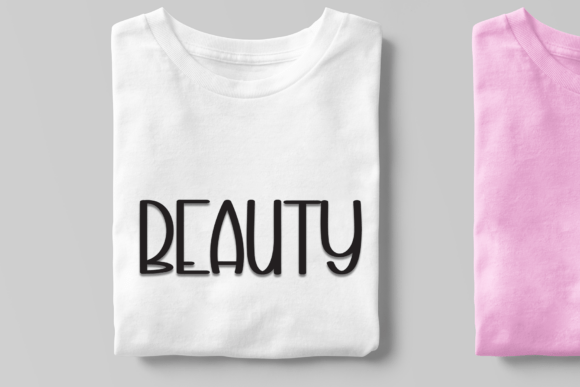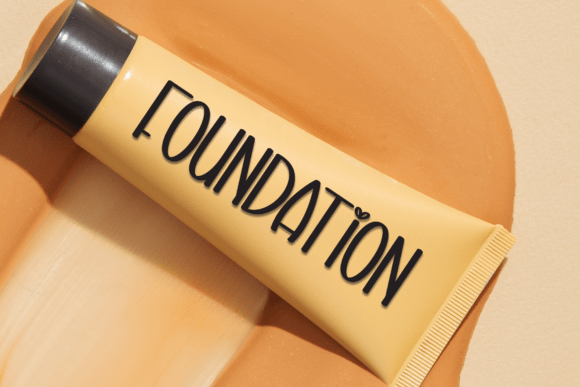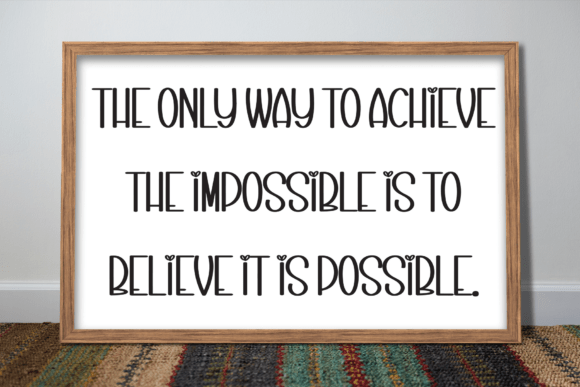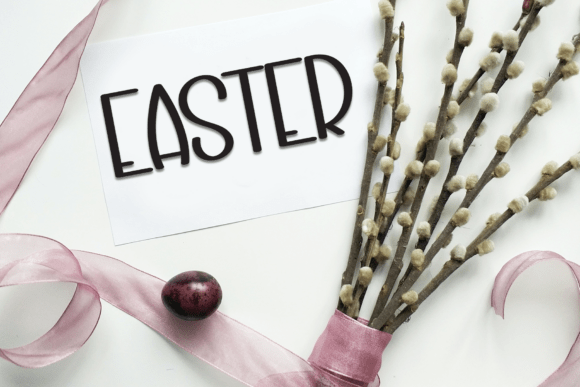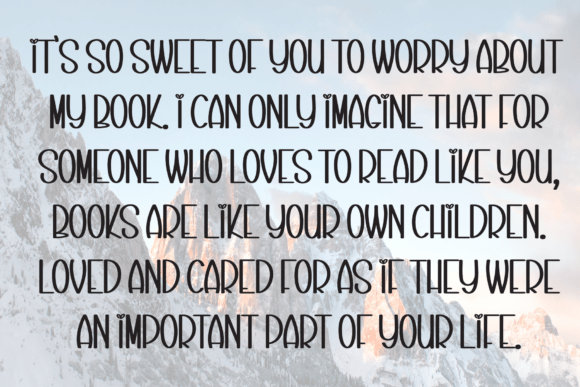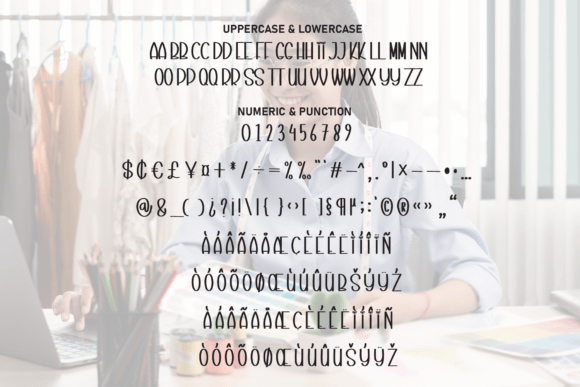
Adding a Dash of Whimsy to Your Designs
Have you ever stared at a blank page, desperately seeking the perfect font to capture the essence of your creative vision? We’ve all been there. The search for that elusive font that elevates your design from ordinary to extraordinary can be a long and arduous one.
Enter the Designer Beautiful Font, a bold and quirky display font designed to add a touch of whimsy to your projects. With its tall, rounded characters and heart-shaped accents, this font is the perfect addition to any design in need of joyful personality. Whether you’re working on branding materials, posters, or social media graphics, the Designer Beautiful Font is sure to bring a smile to your face and a spark to your creativity.
As a designer, you know that the right font can make all the difference in conveying your message and engaging your audience. That’s why the Designer Beautiful Font is a valuable addition to any design toolkit, offering a unique and eye-catching way to express your creativity and style.
Designer Beautiful Font Key Features
- Font Family: Designer Beautiful Font offers a range of 12 unique font styles, each with its own distinct characteristics.
- Character Set: Includes over 800 glyphs, covering a wide range of languages, including Latin, Cyrillic, and Greek alphabets.
- Unique Characteristics: Designer Beautiful Font features a unique blend of modern and traditional design elements, including subtle flourishes and elegant lines.
Designer Beautiful Font Review
Overall, I’m quite impressed with the “Designer Beautiful Font”! ✨ It’s got a unique, elegant touch that’s perfect for high-end branding and luxury designs. The font is highly customizable, allowing you to adjust the size, color, and spacing to fit your project’s needs. I also appreciate how the font renders well across various devices and screen sizes.
The font is particularly effective in:
- ✨ Corporate branding: The elegant, sophisticated feel makes it a great choice for corporate identities and high-end logos.
- ✨ Luxury packaging: The font’s refined look makes it perfect for luxury product packaging and marketing materials.
- ✨ Editorial content: The font’s legibility and readability make it an excellent choice for editorial content and publications.
Overall, I’d give the “Designer Beautiful Font” 4 out of 5 stars. It’s a beautiful, high-quality font that’s perfect for luxury designs, but it’s not without its limitations. If you’re looking for a font that exudes elegance and sophistication, this might be the perfect choice for you.
Tips for Getting the Most Out of the Designer Beautiful Font
For optimal results, use the Designer Beautiful Font in conjunction with other design elements such as images, colors, and shapes. Experiment with different font sizes, colors, and styles to create a unique and eye-catching design.
The Designer Beautiful Font is ideal for use in a variety of design projects, including:
- Social media posts and ads
- Presentations and reports
- Marketing materials and brochures
- Use it as the main title font to create a beautiful and eye-catching heading.
Embellishing Digital Designs with Designer Beautiful Font
Create a stunning wedding invitation that sets the tone for a romantic and elegant celebration. Designer Beautiful Font adds a touch of sophistication to your design.
Project 2: Elegant Food Blog Menu
Create a beautiful menu for your food blog that showcases your culinary skills. Designer Beautiful Font adds a touch of sophistication and elegance.